- Far from home, still sharing Eid happiness.
Poetic Quotes for Warm Eid Moments
- As the Eid moon rises, hearts bloom with gratitude.
- Forgiveness whispered softly beneath glowing crescent skies.
- Warm embraces stitch broken hearts together.
- Prayerful dawn paints hope across weary souls.
- Sweet laughter lingers like sugared memories.
- Faith carries us here, love keeps us.
- Lanterns shimmer, reflecting mercy in every smile.
- Together we celebrate blessings beyond measure.
- Hands united, spirits lifted in thankfulness.
- Eid morning sunlight feels like answered prayers.
7 Aesthetic Fonts for Eid Fitr Mubarak Quotes and Greetings
Sending a quote Eid Mubarak won’t feel perfect without using beautiful fonts. Thus, below we’ll present seven aesthetic fonts to help your messages look more stunning and memorable.
1. Kahlil
It flows with graceful calligraphic curves that feel spiritual and refined to make your Eid quotes look elegant on premium cards and classy posters.
2. Hakan
This font carries a bold and confident personality, perfect for modern Eid banners or social media posts that need to instantly catch attention.
3. Amal Baik
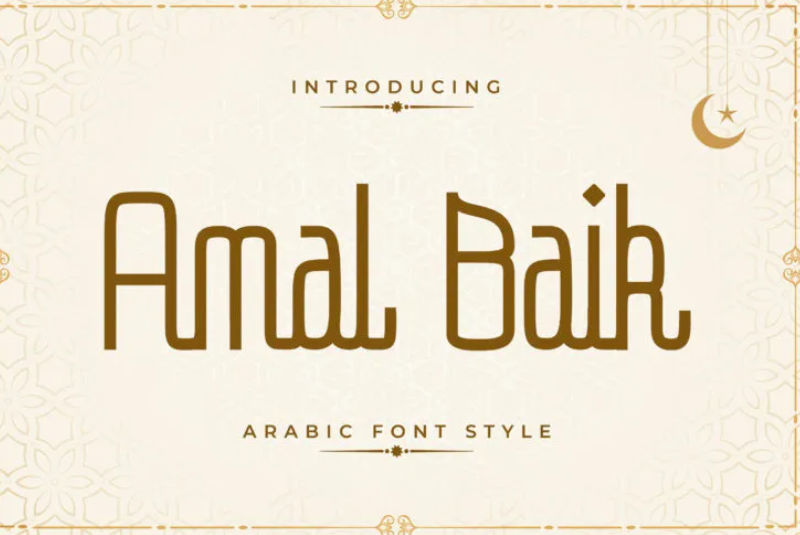
It feels soft and friendly with its smooth curves, beautifully matching warm family greetings and heartfelt Eid messages.